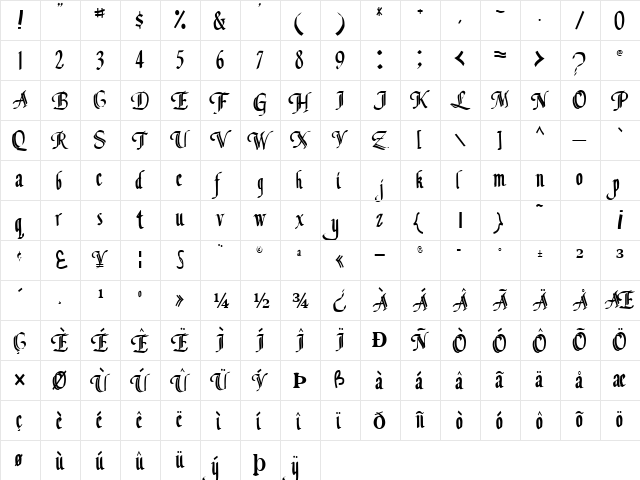
ClassicFont104 Regular
Design Context for ClassicFont104 Typeface
ClassicFont104 has the warm character of retro typography — evoking diners, record sleeves, and the golden age of print advertising.
Font Pairing: Combine ClassicFont104 with a simple slab or neutral sans — period-accurate companions reinforce the vintage feel without competing for attention.
Pro Tip: Use ClassicFont104 for headlines and pull quotes rather than body copy — its personality is best appreciated in short, focused bursts.